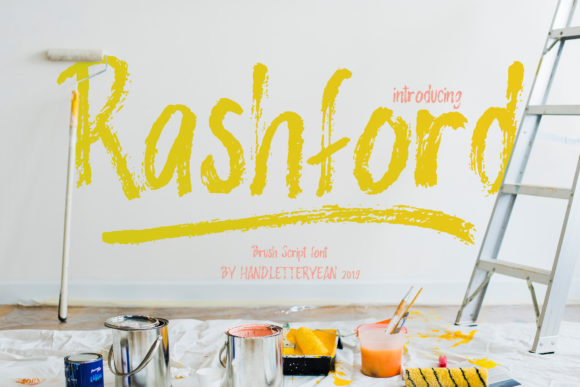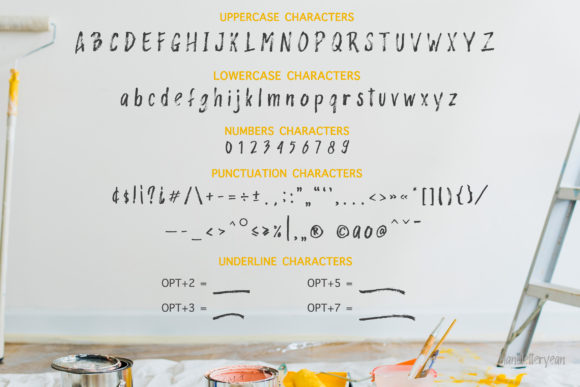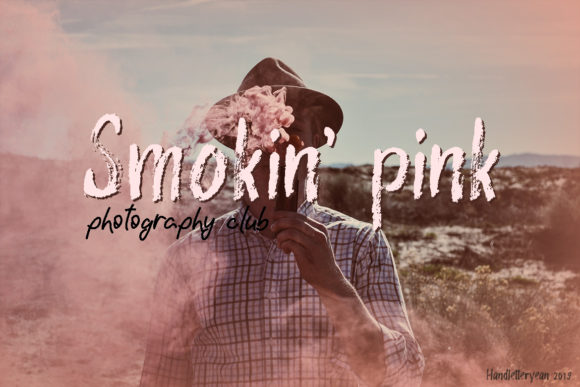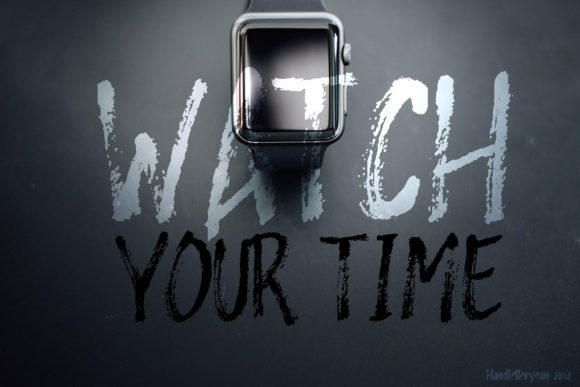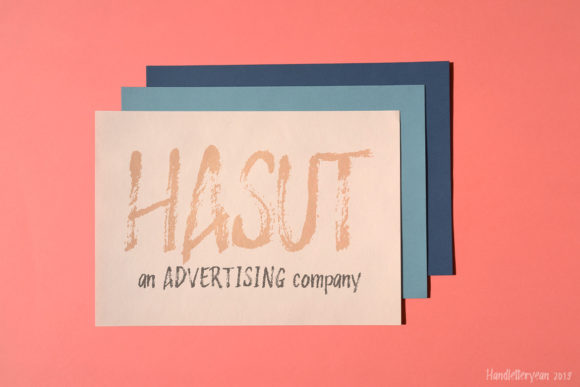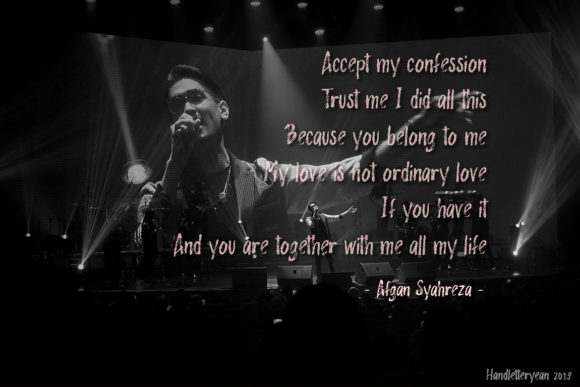
Rashford Font
About Rashford Font
The Rashford is a brush font that fulfills all your needs. It was made with a brush pen with a real brush tip that gives a result a rough an distorted font.
It can be used for posters, graphics designs, quotes, greeting cards, logos, and every other design which needs a rough look.